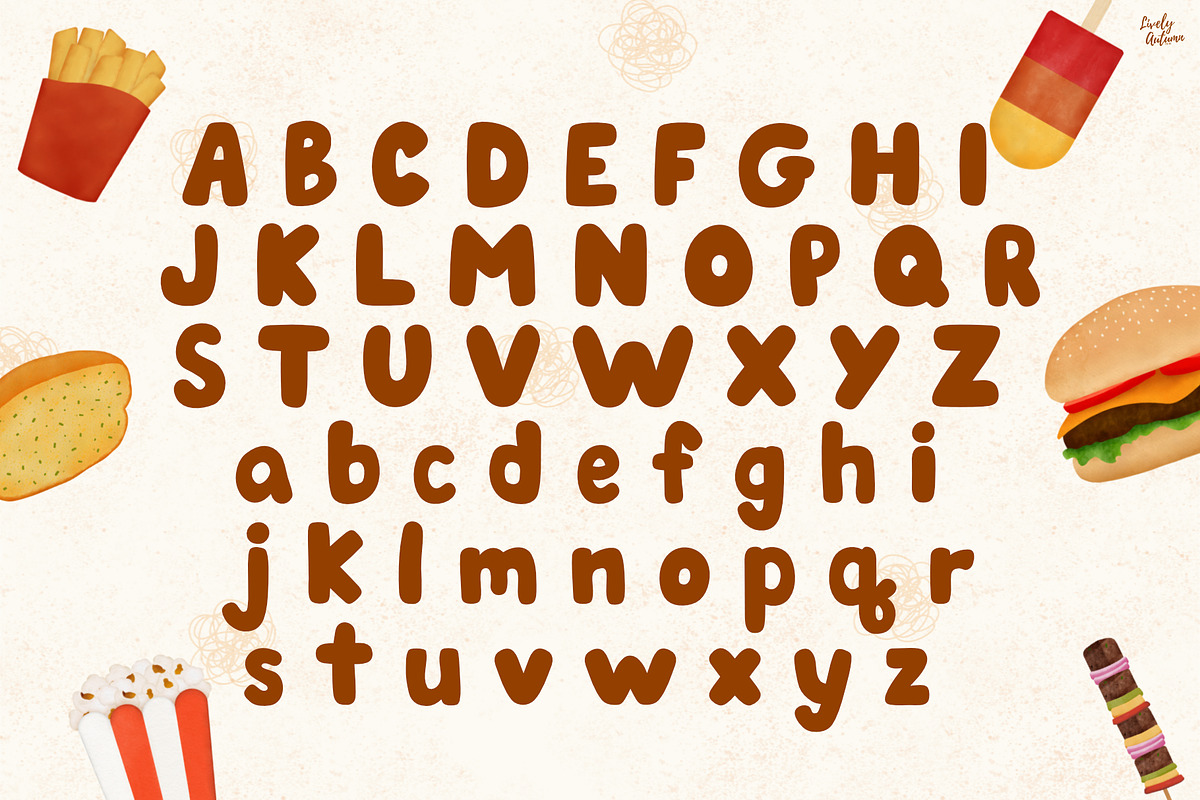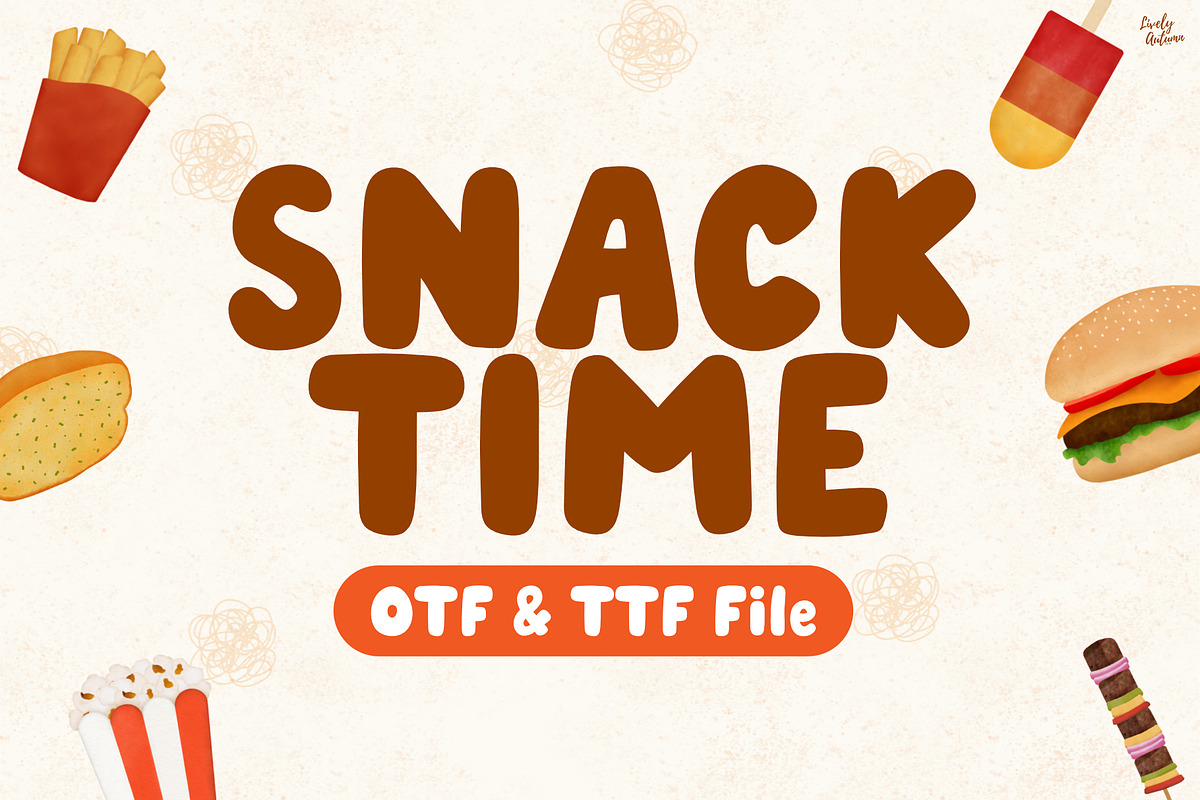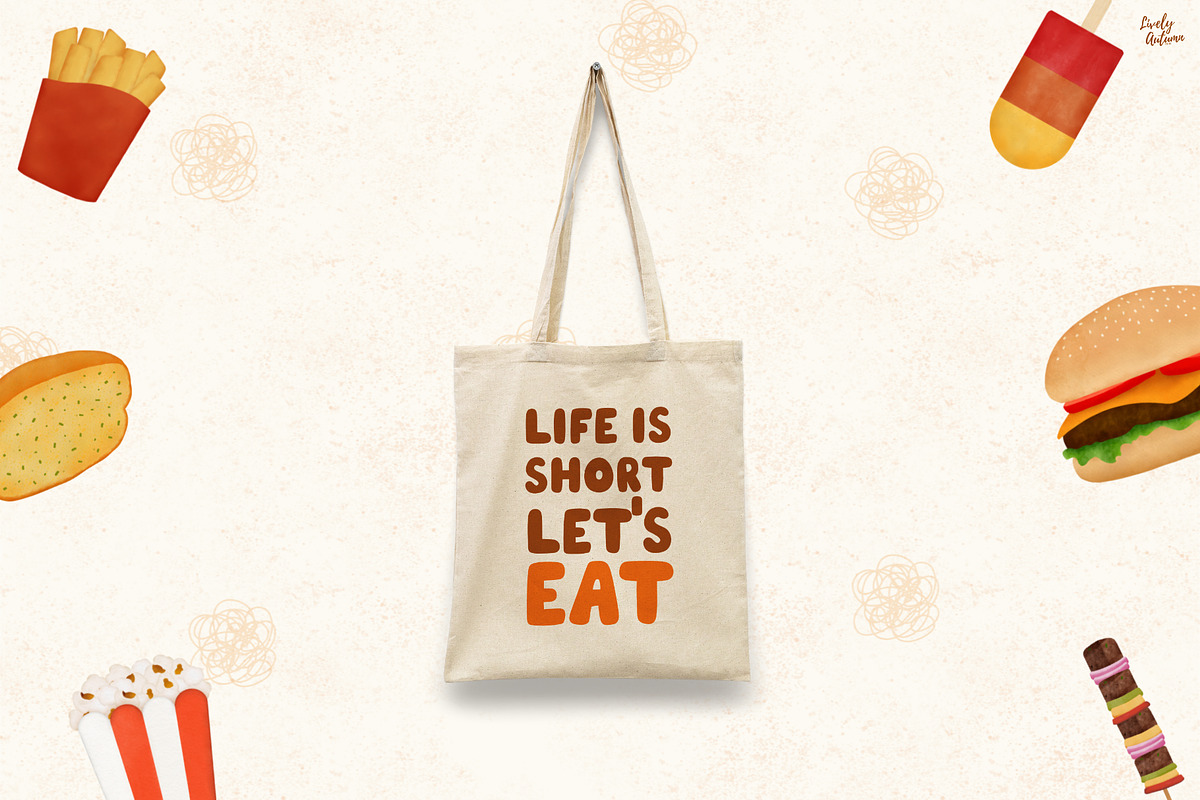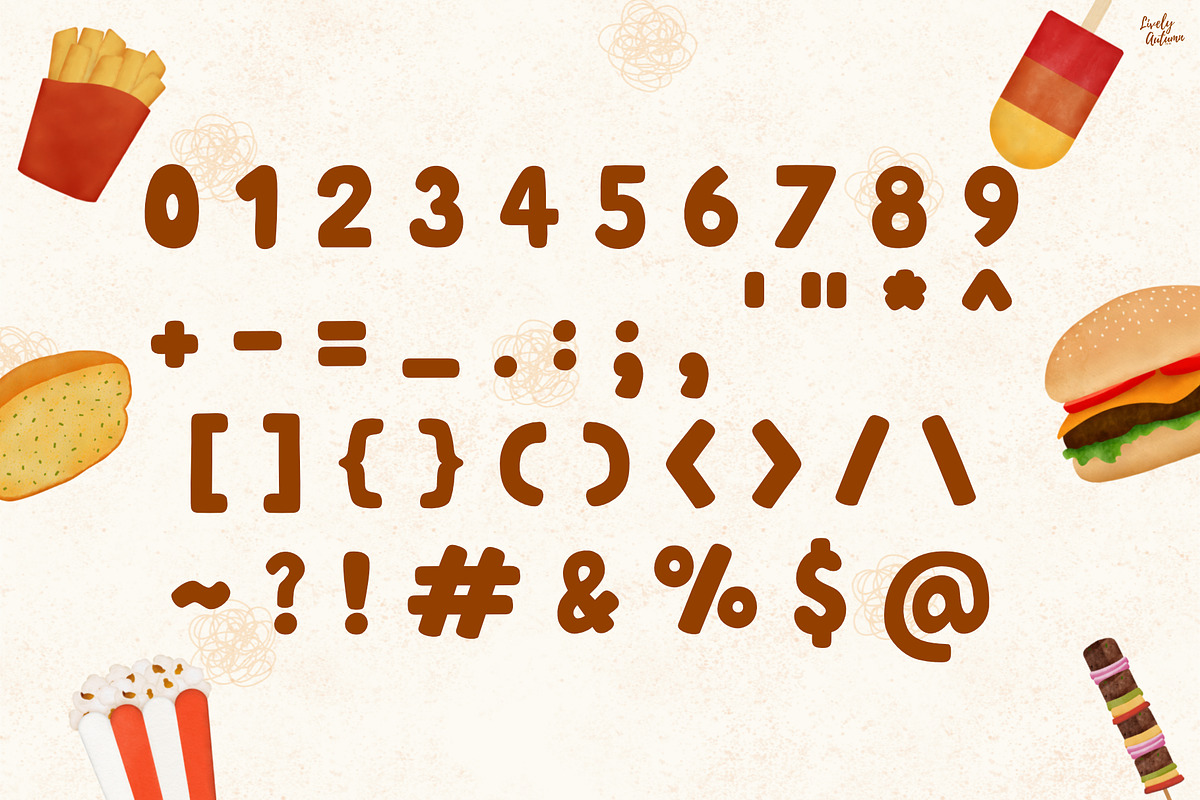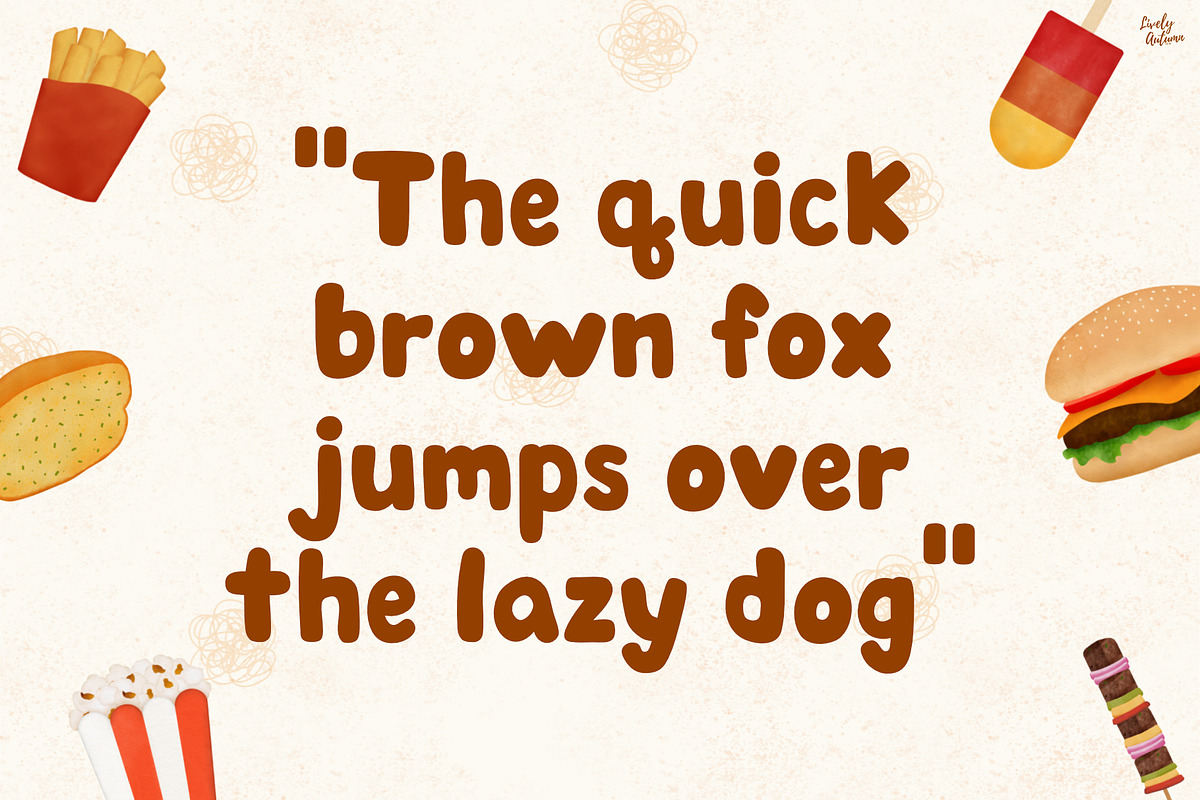
Snack Time | Chubby Handwriting font
Snack Time is a cute chubby handwritten font. Perfect for your personal projects and various projects. From invitations to posters, social media graphics, journals, stickers and much more.
- Font includes: uppercase, lowercase, numbers, and punctuation